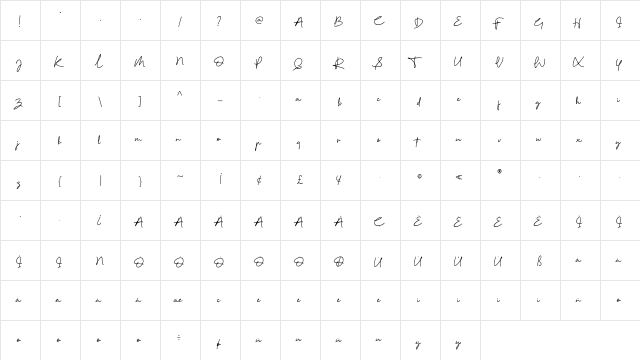
Reinata Regular Font Preview
Reinata Regular
Reinata Regular Font Details
| Designer | Ndrienugrie |
Design Context for Reinata Typeface
Reinata is a composed and adaptable typeface that performs quietly and consistently across a wide range of design contexts.